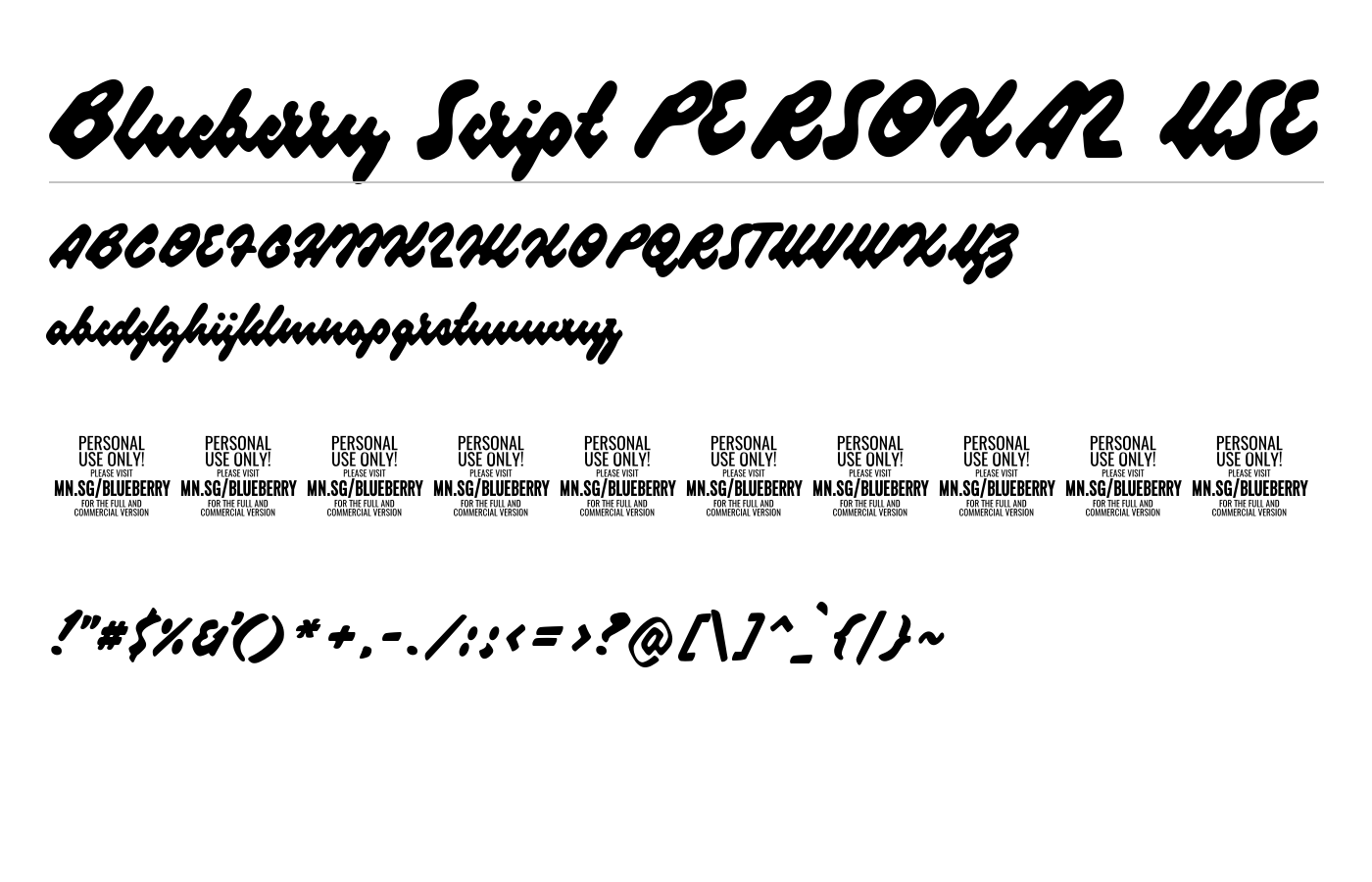
Blueberry Script is a bold, playful script font characterized by its thick, fluid strokes and smooth, rounded edges that evoke a casual, handwritten feel. Its lively and friendly personality makes it ideal for informal branding, packaging, invitations, and creative projects where a warm, approachable tone is desired. This font works best in display uses where its strong presence and energetic style can truly stand out.
Blueberry Script PERSONAL USE Font
About Blueberry Script PERSONAL USE Font
| Font family | Blueberry Script PERSONAL USE Font |
| Designer | MÂns Greb‰ck |